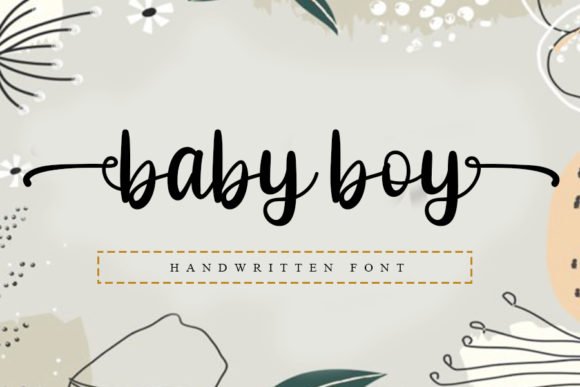
The Sweetest Addition to Your Design Palette: Baby Boy Font
There’s something magical about creating a design that captures the essence of a special moment – like planning a baby shower, designing a nursery, or crafting a heartfelt gift for a new parent. It’s a time to let your creativity shine and add a personal touch to your project. And, what better way to do that than with the perfect font?
Enter Baby Boy Font, a charming and cursive handwritten font that exudes warmth and joy. This lovely font is designed to add a romantic and whimsical feel to your designs, making it perfect for a variety of projects, from invitations and announcements to nursery decor and more.
As a designer, you know how valuable the right font can be in elevating your work. Baby Boy Font is a valuable addition to your design toolkit, offering a unique and eye-catching way to express your creativity and bring your ideas to life.
Baby Boy Font Key Features
- Font Style: Cursive, Script
- Unique Characteristics: Whimsical, playful, and elegant script font, perfect for baby-related designs, invitations, and announcements
Baby Boy Font Review
As a designer, I was excited to dive into the “Baby Boy Font” and see what it has to offer. On the surface, the font looks cute and playful, perfect for a nursery or children’s brand. ✨ The rounded edges and soft curves give it a friendly, approachable feel that’s sure to appeal to parents and young kids alike.
One of the standout features of this font is its versatility. It’s suitable for a wide range of applications, from logos and headings to body text and signage. ✨ The font’s open-source license also makes it freely available for anyone to use, which is a major plus.
However, there are a few limitations to consider. ⚠️ For one, the font’s design may not be suitable for all audiences. The cutesy, childish feel may not resonate with older adults or more formal brands. Additionally, the font’s legibility can be a bit inconsistent, particularly at smaller sizes or in certain contexts.
- Cute, playful design
- Versatile for a wide range of applications
- May not be suitable for all audiences
- Legibility can be inconsistent
Overall, the “Baby Boy Font” is a solid choice for anyone looking for a fun, approachable font for a children’s brand or nursery. While it may not be perfect for every application, its unique design and versatility make it a great option for designers looking to add a touch of whimsy to their projects.
Here are some tips to get the most out of “Baby Boy Font”:
– Use it in conjunction with other bold fonts to create a striking visual effect.
– Experiment with different font sizes and colors to match your design.
– Use it for baby-themed designs, such as baby shower invitations or nursery decor.
Some common use cases for “Baby Boy Font” include:
– Baby shower invitations
– Nursery decor
– Baby-themed party decorations
– Personalized baby gifts
Alternatives to Baby Boy Font for Designers
Great Vibes is a beautiful, handwritten font that is perfect for adding a touch of elegance and sophistication to your designs. It features flowing lines and subtle flair, making it ideal for creating invitations, posters, and other promotional materials.
Comparison to Baby Boy Font: While Baby Boy Font has a more playful, childlike feel, Great Vibes is more refined and sophisticated. Great Vibes is a better choice for designs that require a sense of luxury and high-end style.
Pacifico is a modern, cursive font that is perfect for creating a relaxed, beachy vibe in your designs. It features soft, flowing lines and a touch of elegance, making it ideal for creating invitations, menus, and other promotional materials.